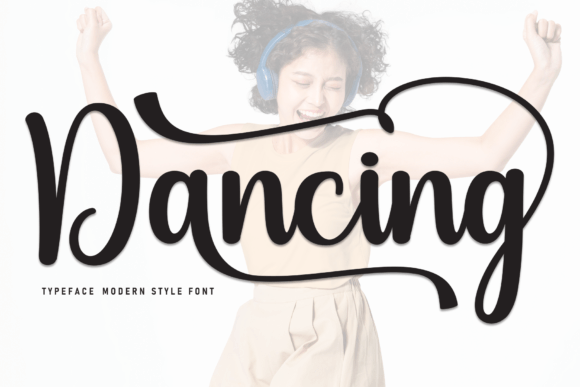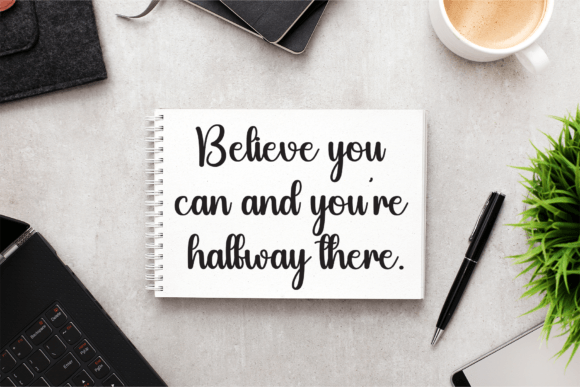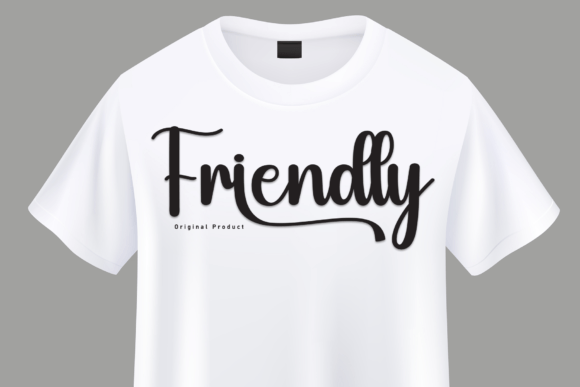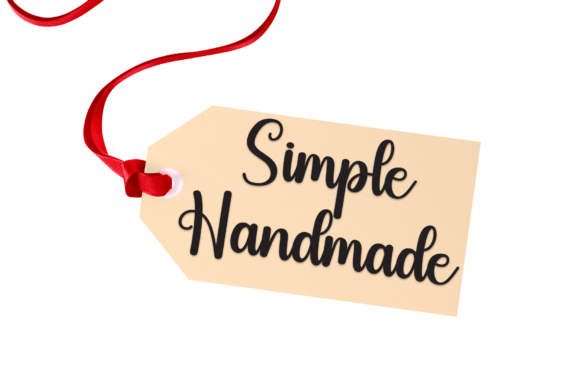
Dancing Font
About the Dancing Font
Discover the charm of Dancing Font. This font is a perfect blend of modern aesthetics and classic appeal. Dancing is a sweet and friendly handwritten display font. Cute and fun, this font is ideal for writing wedding invitations, cards, or any other design that might need a fun touch!
Dancing’s playful, rounded forms make it perfect for headlines, short text blocks on posters or packaging, and eye-catching social media graphics. Its informal style lends itself well to projects targeting a young, friendly demographic, such as children’s books or branding for cafes and boutiques. However, its low x-height and inconsistent stroke weight make it unsuitable for body copy or UI elements requiring high readability.
Pairing Dancing with a clean sans-serif like Open Sans for body text creates a balanced contrast between the playful display and easily legible supporting type. Alternatively, a classic serif like Garamond adds a touch of sophistication, tempering Dancing’s inherent fun while retaining visual interest. Avoid pairing it with other highly decorative or script fonts to prevent visual clutter.
Dancing’s overall personality is best described as cheerful and approachable, making it a strong choice for brands aiming for a lighthearted and friendly image. Its informality, however, means it should be used strategically to avoid undermining a brand’s professional image or creating visual fatigue.
Dancing Font Usage Examples
Dancing Font Example